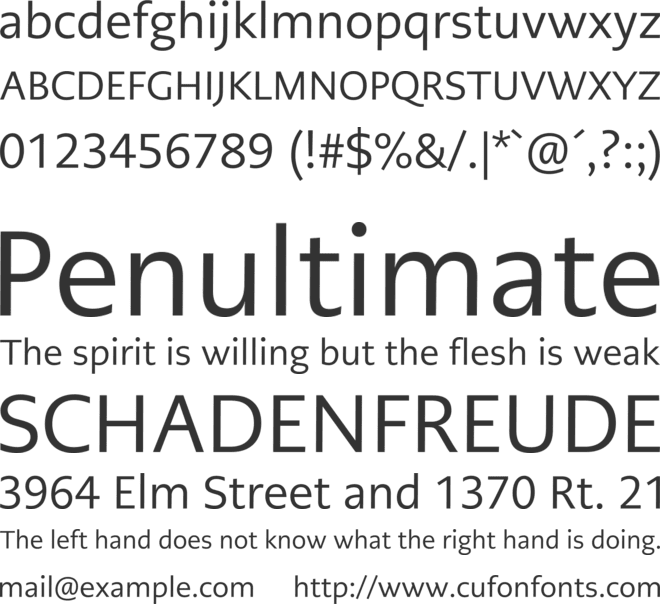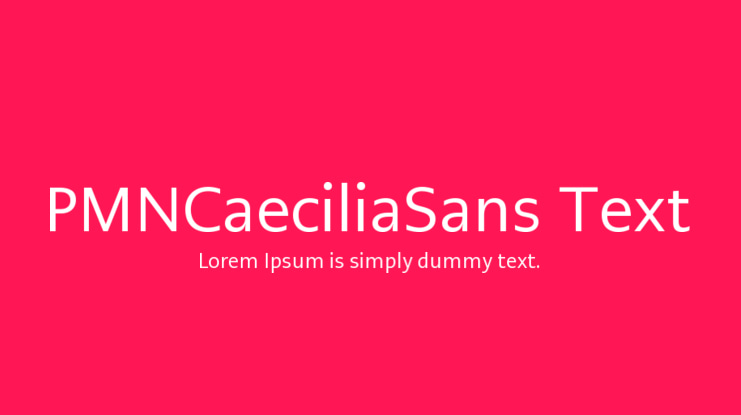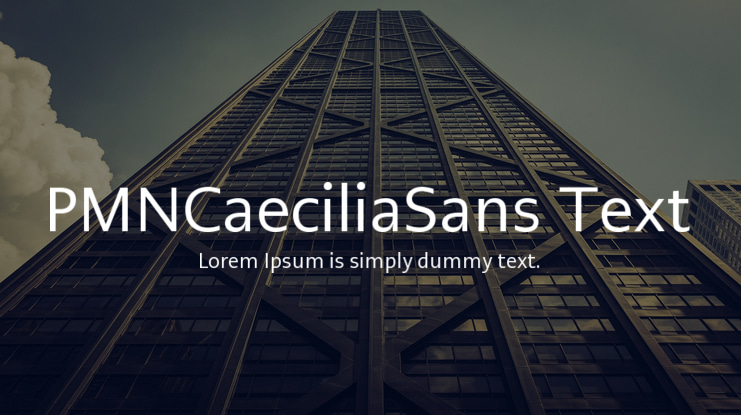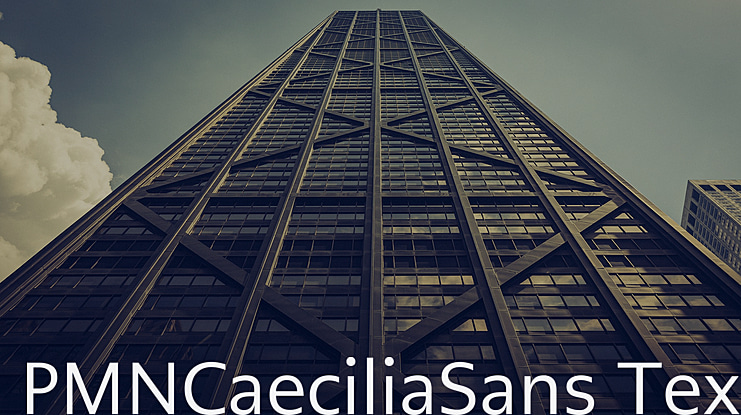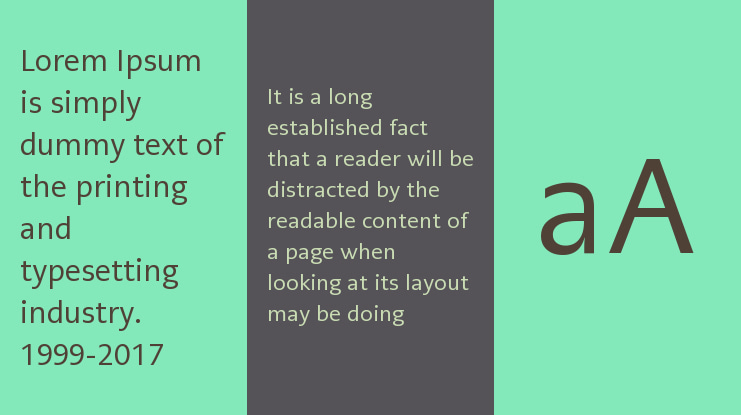
Peter Matthias Noordzij
The PMN Caecilia® Sans family is a must-have suite of fonts for just about any interactive designer – and it also performs handsomely in print environments.
The family spans 42 designs drawn to excel in a variety of print and digital applications.
“It is not intended to be eye-catching, but generous: enabling numerous visual and typographical expressions,” explains Peter Matthias Noordzij, the typeface’s designer.
“My goal was to create a, friendly, versatile, ageless, yet discerning typeface family that will serve the needs of many users.”
The PMN Caecilia Sans design was drawn specifically for on-screen imaging. A large family of seven weights, each with stylistic variations of roman, italic, cursive, oblique, with “headline” versions of the roman and oblique designs. “I didn’t design PMN Caecilia Sans for applications in the sense of a product,” says Noordzij. “Instead, I designed it with a particular use in mind: to be adjustable to circumstances that occur when reading type on screen. Instead of addressing typographic problems of the past, my goal was to design a family that addresses typographic challenges of the future.”
The use of PMN Caecilia in Amazon’s Kindle® wireless reading device gave Noordzij an opportunity to study the behavior of his typeface in an on-screen environment, and explore the characteristics necessary for optimum imaging.
While he clearly based PMN Caecilia Sans on his earlier slab serif typeface, the new design has fundamental changes to improve its performance on digital screens.
Noordzij adjusted the relationship of character stroke width modulation and modified spacing and kerning to ensure the best levers of readability.
He even created special headline versions to be used at large sizes.
Italics are true cursive designs, while the oblique typefaces are slanted designs based on the roman letterforms.
Additional weights were also drawn to provide a rich palette of designs to address the most complex of hierarchical concerns.
PMN Caecilia Sans benefits from features such as small caps, old style and lining figures for both text and tabular use, and a large series of alternate characters.
OpenType fonts also provide a large character set supporting Western and many Eastern European languages.
The PMN Caecilia Sans family matches the four weights in PMN Caecilia – and adds to this a heavy weight and two additional light designs. Noordzij went back to the roots of the slab serif and designed a set of oblique typefaces. These, plus a set of cursive italics, in addition to the special headline designs, bring the family total to 42 typefaces.
A broad range of typefaces pair well with PMN Caecilia Sans.
PMN Caecilia is a natural design partner – as are other slab serif typefaces, like the Egyptian™ Slate, Plantin® and Joanna® Nova families.
Humanist serif typefaces, such as Dante®, Frutiger® Serif and Agmena™, also create dynamic typographic harmony, while designs like Perpetua®, Masqualero™ and ITC New Veljovic™ set up a striking counterpoint.
UX, web and interactive designers creating digital interfaces, complex website projects, apps, games, kiosks and HTML ads will appreciate the on-screen high legibility performance of PMN Caecilia Sans. Banners, headings, long and short form text will benefit from the family’s wide range of weights and variations.
Large-scale brand identity projects are also in PMN Caecilia Sans’ wheelhouse.